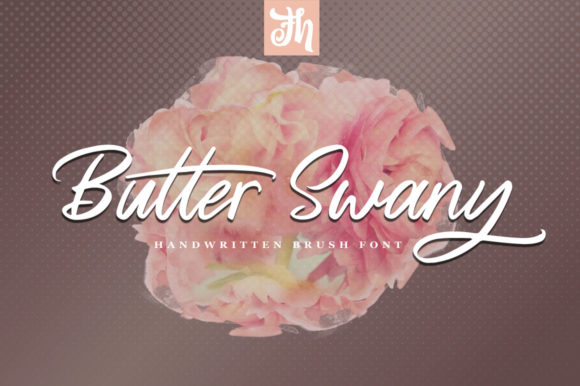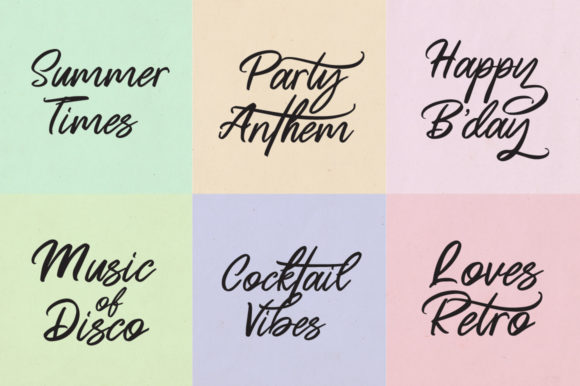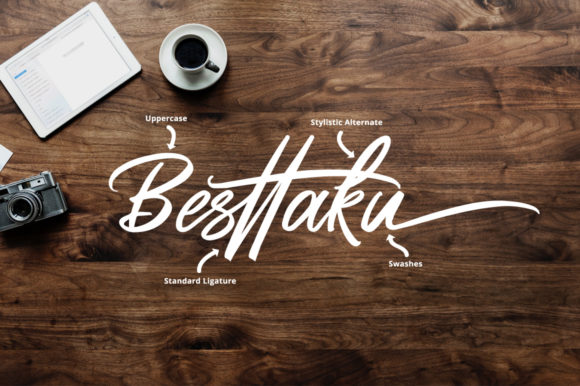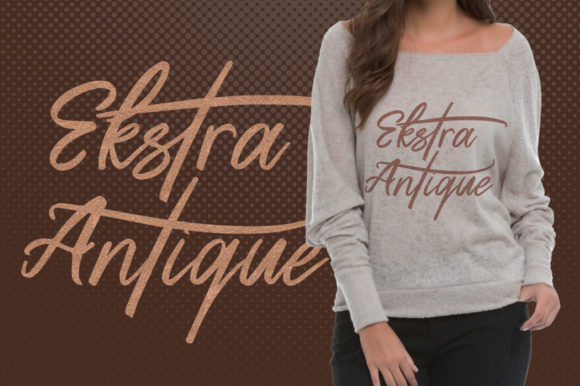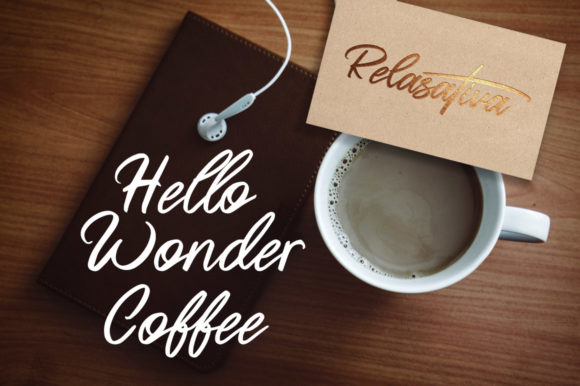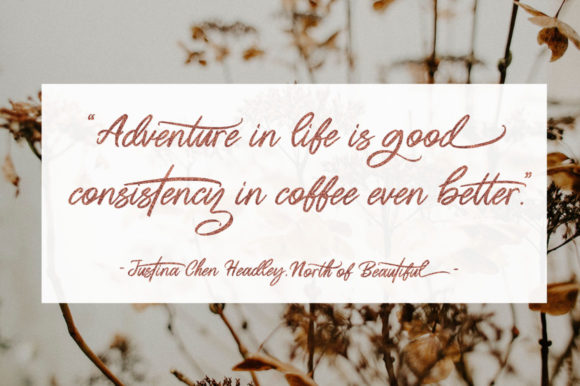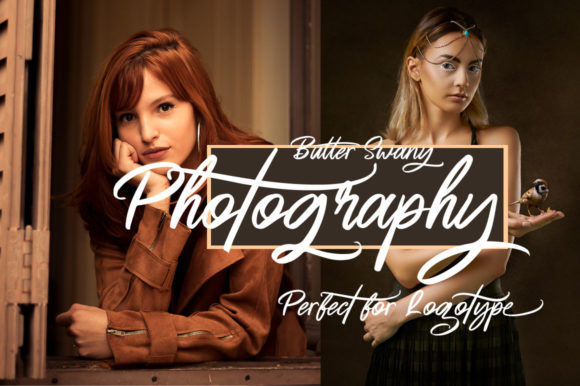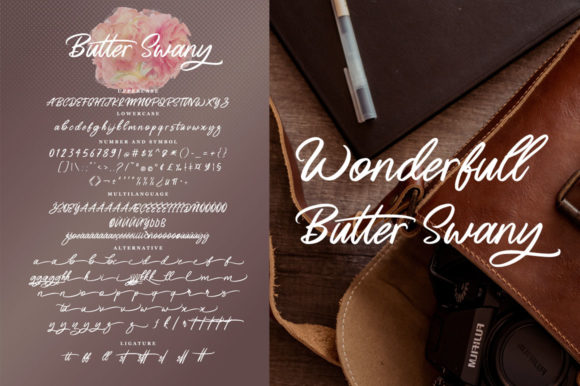
HomeScript FontsButter Swany Font Script Fonts Butter Swany Font FacebookXPinterestWhatsApp Butter Swany Font Poster 2 Butter Swany Font Poster 3 Butter Swany Font Poster 4 Butter Swany Font Poster 5 Butter Swany Font Poster 6 Butter Swany Font Poster 7 Butter Swany Font Poster 8 About Butter Swany Font Butter Swany is a script font with playful curves. Get inspired by its charming character! DOWNLOAD ON CREATIVE FABRICAThis font is sold and delivered by Creative Fabrica. Font Canyon may earn a commission if you buy through this link. People also explored Spooky Doodles Font Gloria Machetta Font Yasmine Font Mayda Font New Bellar Font Minimal Holiday Font Playful Font Faloney Script Font Sallita Font 335 0 TagsButter Swany Font Previous articleStaytion Script FontNext articleMagentasia Font LEAVE A REPLY Cancel reply Comment: Please enter your comment! Name:* Please enter your name here Email:* You have entered an incorrect email address! Please enter your email address here Website: Save my name, email, and website in this browser for the next time I comment. Personal Use Free Rumaniaya Personal Use Free Read more about this font Monogram Calligraphy Personal Use Free Read more about this font Kaysan Personal Use Free Read more about this font Austin Personal Use Free Read more about this font BLOG Fonts That Capture the Spirit of New York City New York City is more than just a place—it’s an experience, a rhythm, a visual language... Free Fonts Risk: Why Free Fonts Can Be Dangerous for Designers Best Fonts for YouTube Videos: Make Your Thumbnails Stand Out Transform Your Website: Elevate Your Typography with 7 Best Web Font Generators